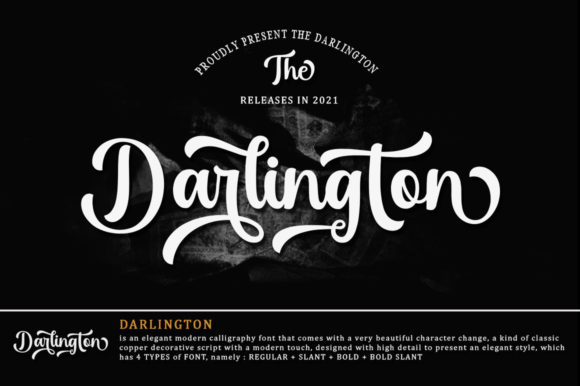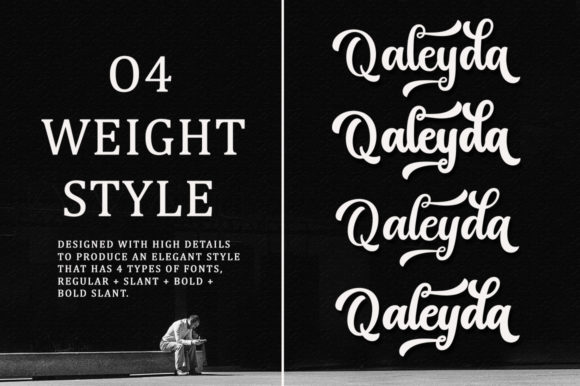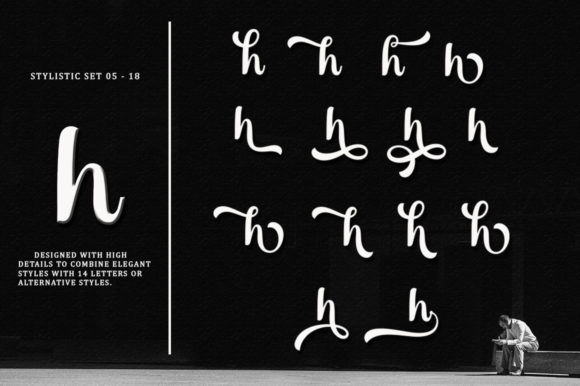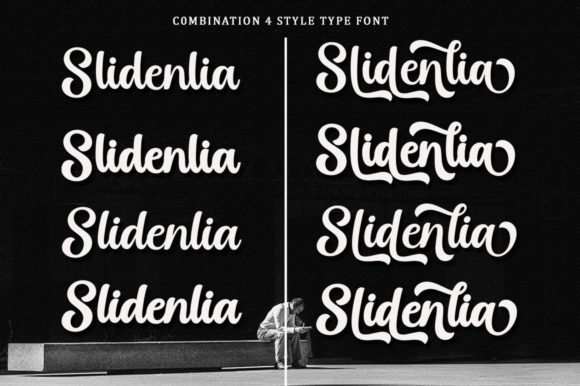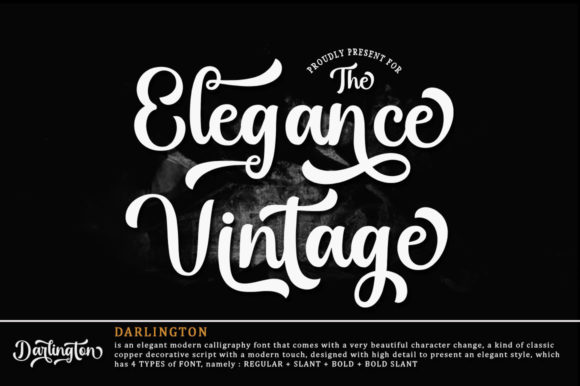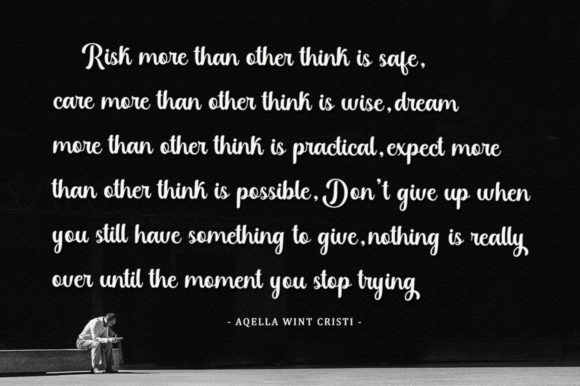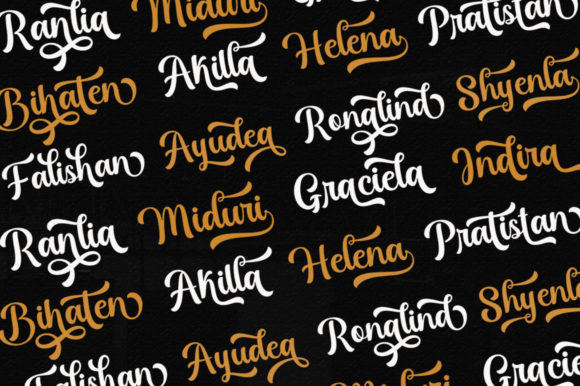
Darlington Font
About Darlington Font
Darlington emerges as an elegant calligraphy font, showcasing a beautiful character transformation that blends classic decorative script with a modern touch. The font is meticulously designed with high detail to convey a sense of refined elegance.
What sets Darlington apart is its aesthetic appeal – a typeface that is not only pleasing to the eye but also exudes cleanliness, femininity, sensuality, glamour, and simplicity. These characteristics make Darlington versatile and suitable for a myriad of applications. Its classic style lends itself well to various formal forms, including invitations, labels, restaurant menus, logos, fashion, makeup, stationery, novels, magazines, books, greeting and wedding cards, packaging, and advertising purposes.
The font’s clean and easy-to-read design ensures that it can be applied across a wide range of projects, maintaining clarity and sophistication. Its adaptability makes it a valuable asset for designers seeking a font that effortlessly conveys a sense of timeless elegance.
Darlington’s PUA encoding is another noteworthy feature, granting users access to a rich set of glyphs and ligatures with ease. This encoding enhances the font’s usability, providing creative freedom for customization and personalization to suit the specific needs of diverse design projects.
In summary, Darlington is not just a font; it’s an elegant calligraphy typeface that seamlessly marries classic and modern design elements. With its refined character transformation, aesthetic appeal, and PUA encoding, Darlington stands as a versatile and accessible choice for designers seeking a font that effortlessly communicates sophistication and style across a wide range of applications.